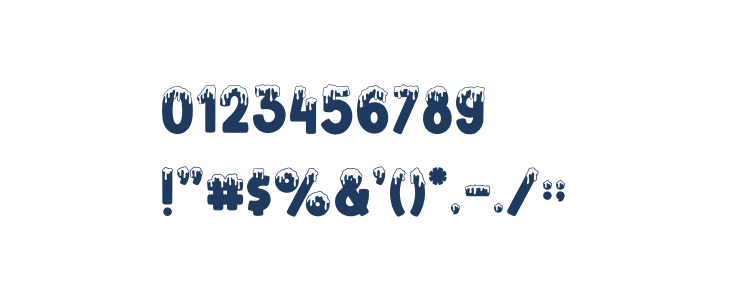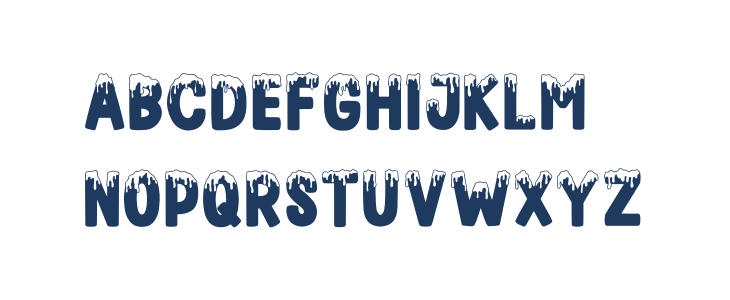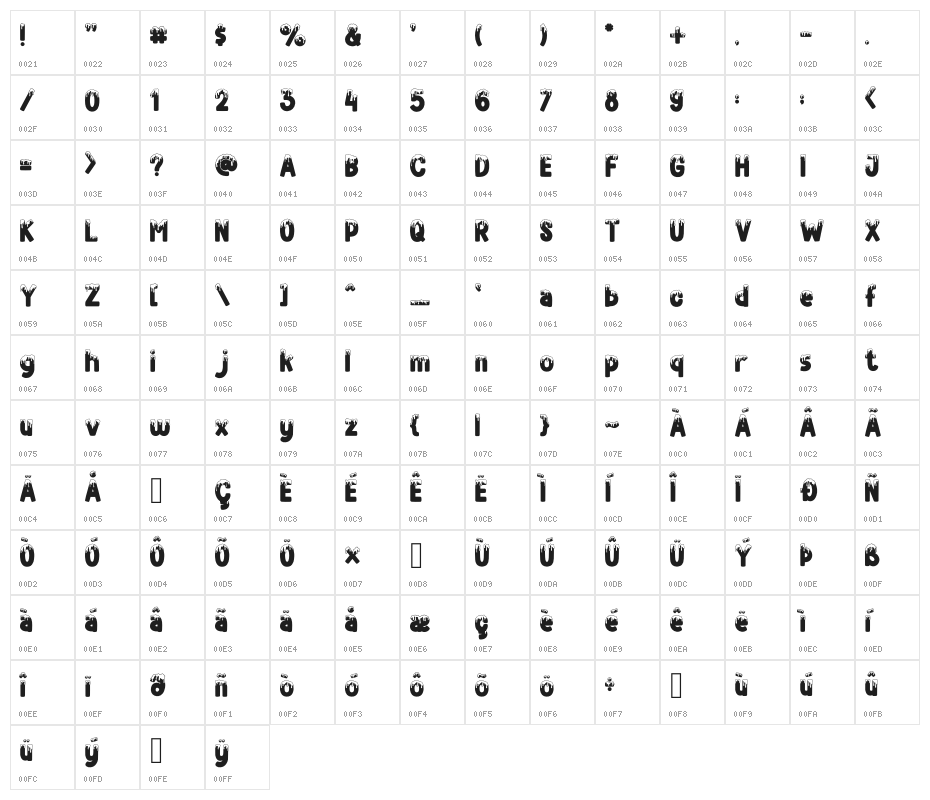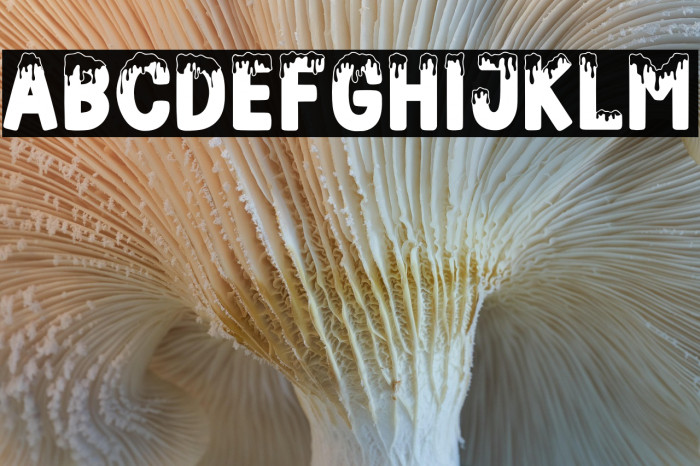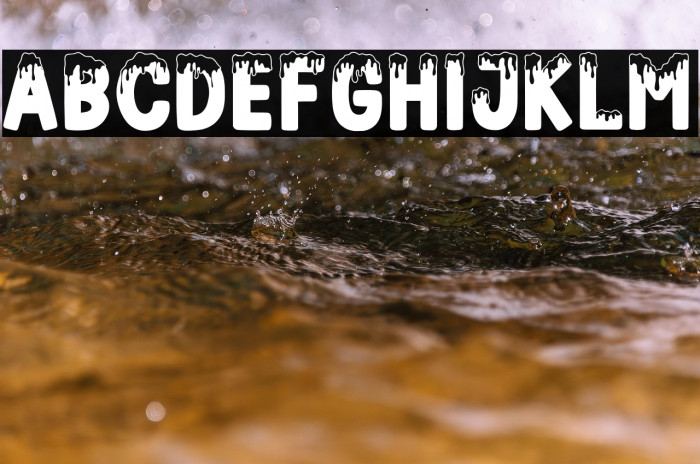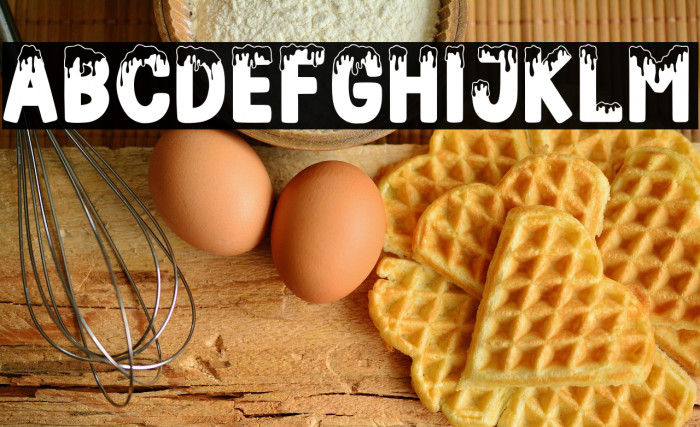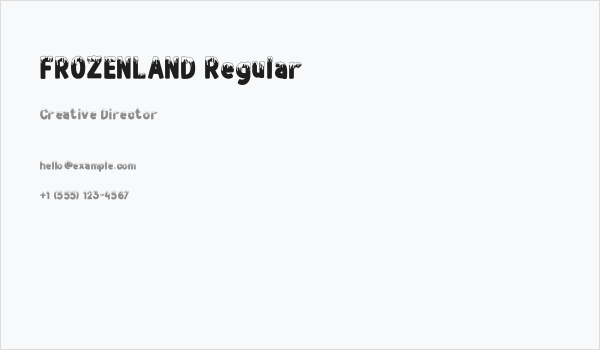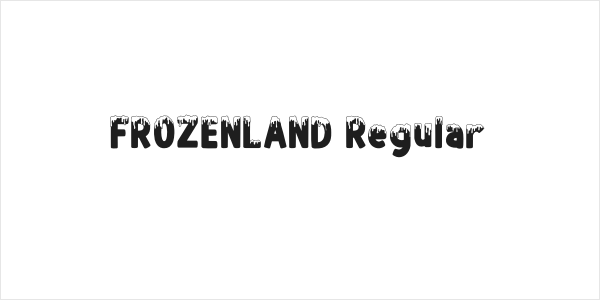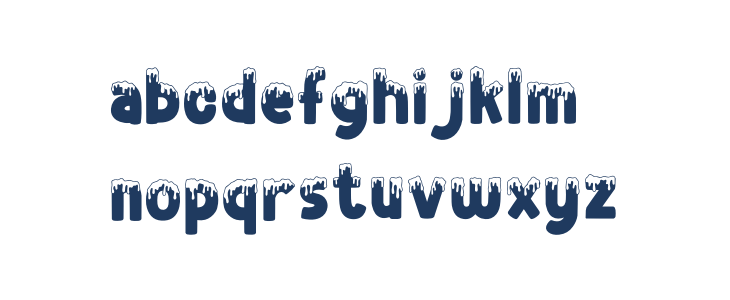
FROZENLAND Regular Font
FROZENLAND Regular Description
A bold, playful display font featuring uppercase, lowercase letters, numbers, and symbols with a dripping snow or ice effect on top of each character, evoking a frozen or wintery theme.
| Overall Style | Playful, Thematic, Seasonal |
| Use Case | Headlines, Logos, Posters, Themed Invitations |
| Proposed Projects | Winter holiday graphics, event posters, childrenΓ’β¬β’s party invitations, seasonal branding, and themed packaging. |